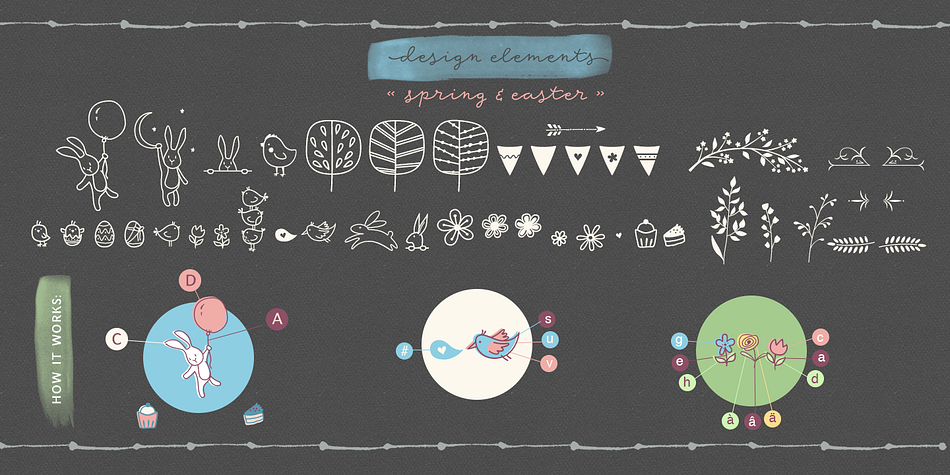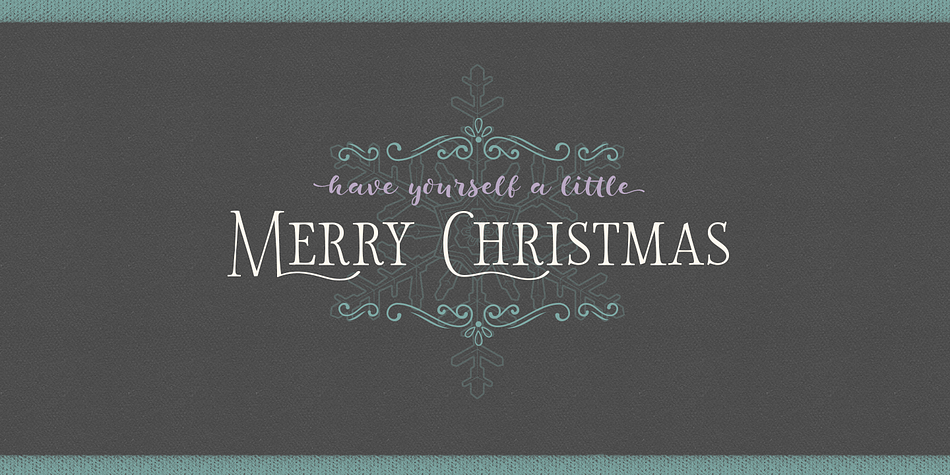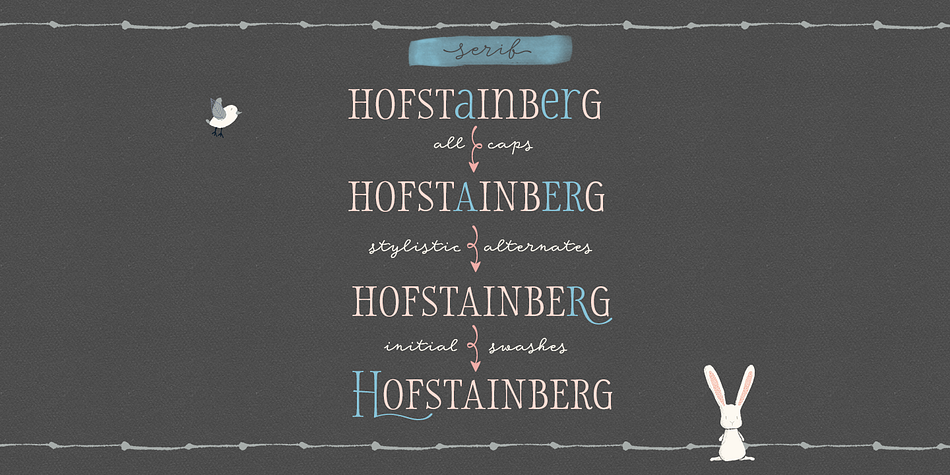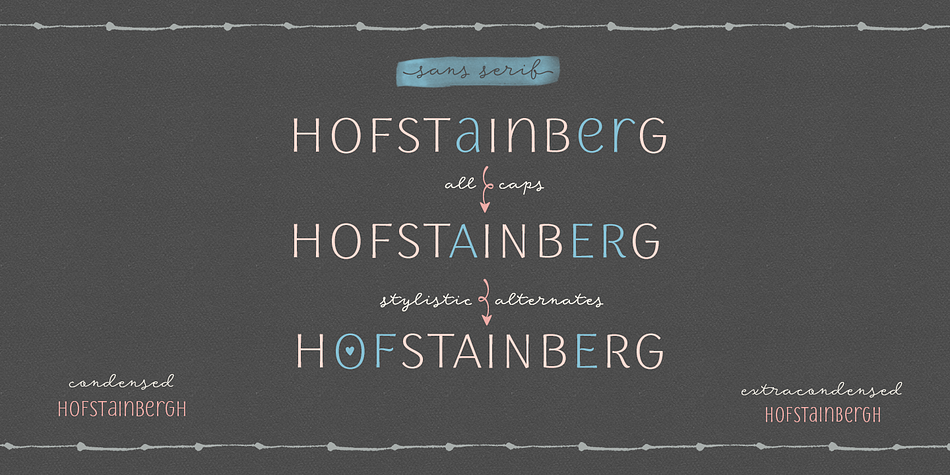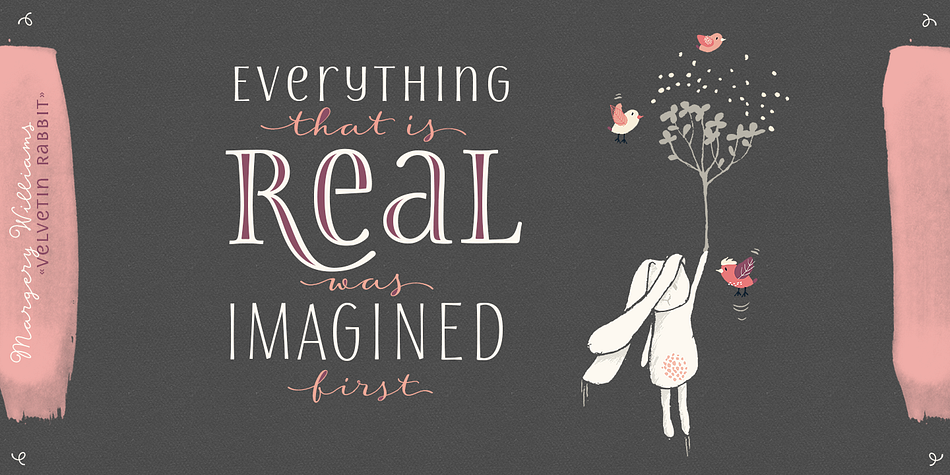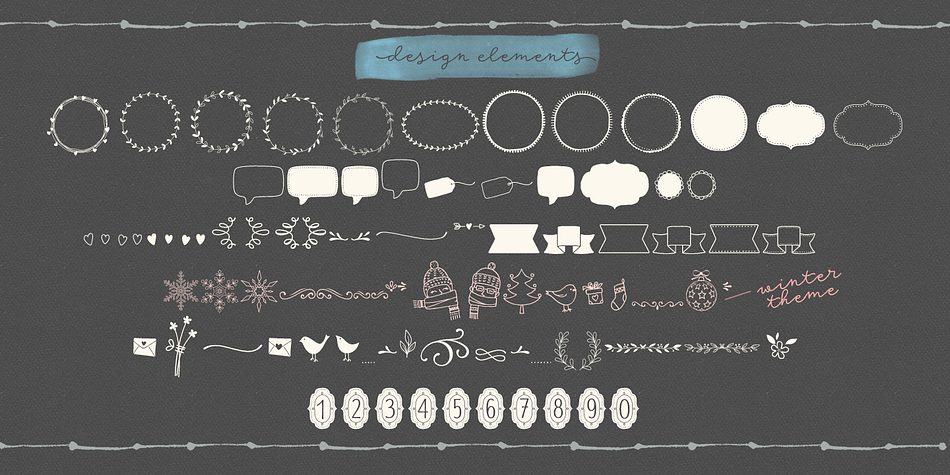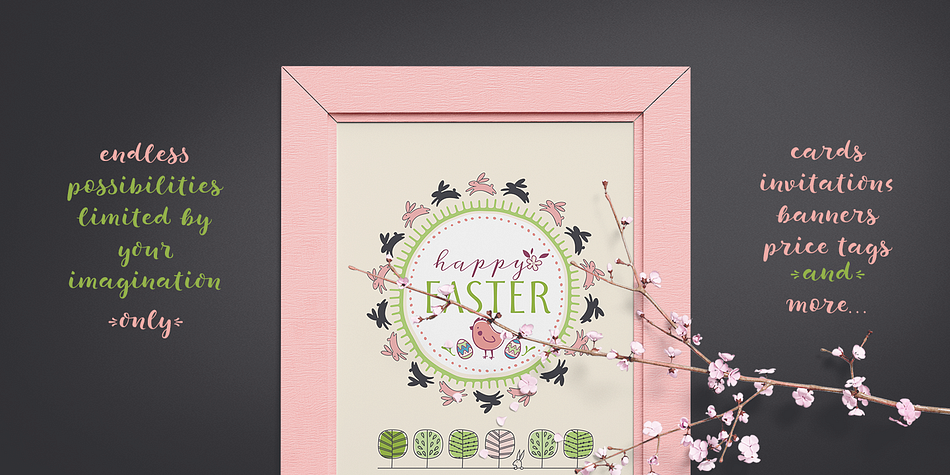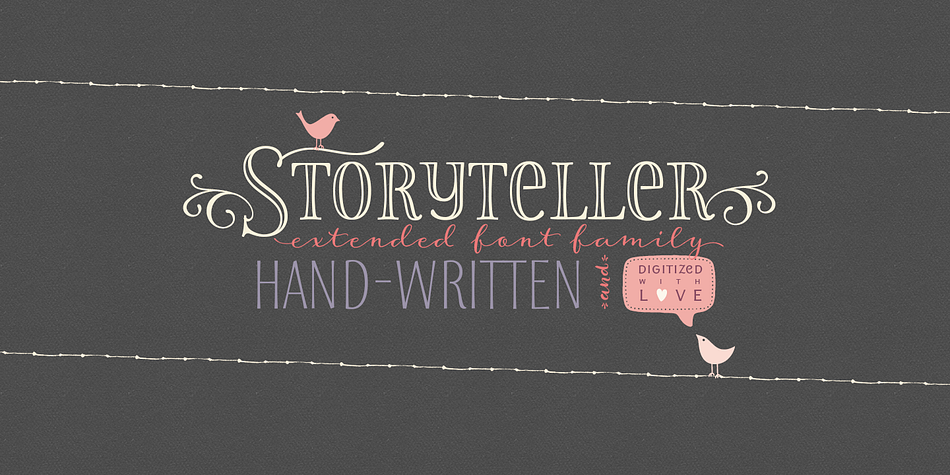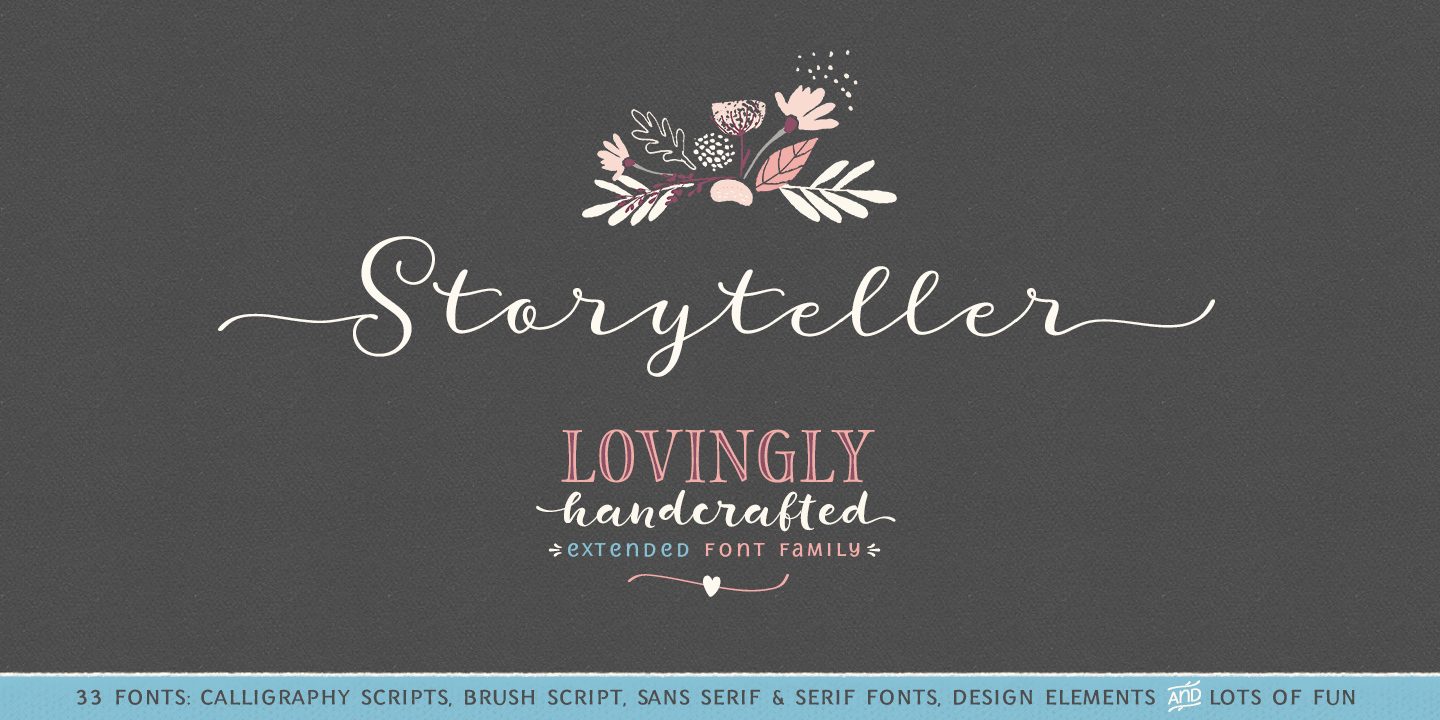
Storyteller is a multiple classification font family. This typeface has thirty-three styles and was published by My Creative Land.
A lovingly handcrafted, hand written, hand-traced and digitized font family that you can use in all sort of design projects - branding, invitations, quotes design etc etc etc.
The family contains 32 fonts in total. Script fonts all have initial and end swashes as well as ligatures and contextual alternates. Serif and Sans serif fonts also have stylistic alternates. All fonts also have catchwords such as and, to, ever, for, the, only.